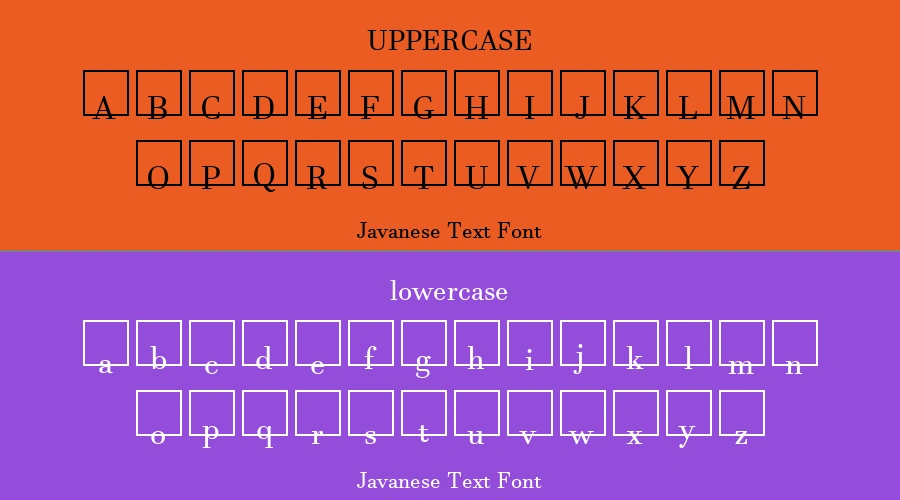
About Javanese Text Font
Javanese Text Font embodies typographic excellence through its masterful combination of humanist proportions and reading comfort. Created for advertising campaigns, this typeface delivers exceptional consistency and professional authority across all applications. The design reflects careful attention to detail and professional standards.
Advanced capabilities include distinctive measured spacing and versatile decorative sets, giving designers creative control. When used in reference books, Javanese Text Font exhibits remarkable rendering. The harmonious balance between curve radius and artistic merit sets this typeface apart.